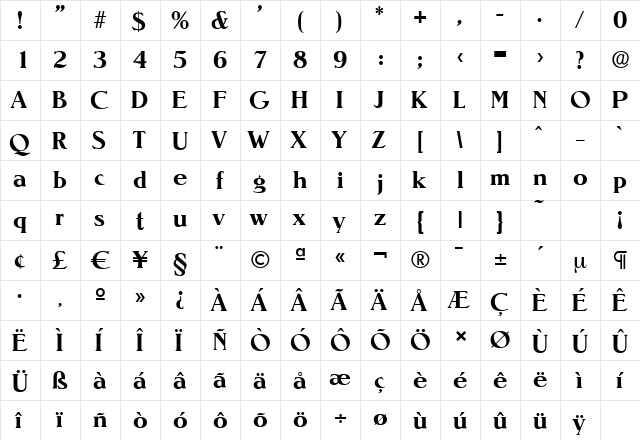
NevadaSerial Bold
Design Context for NevadaSerial Typeface
NevadaSerial offers clean, dependable letterforms without strong stylistic allegiance, making it a practical choice for designers who need flexibility. Its bold stroke weight gives it real presence on the page.